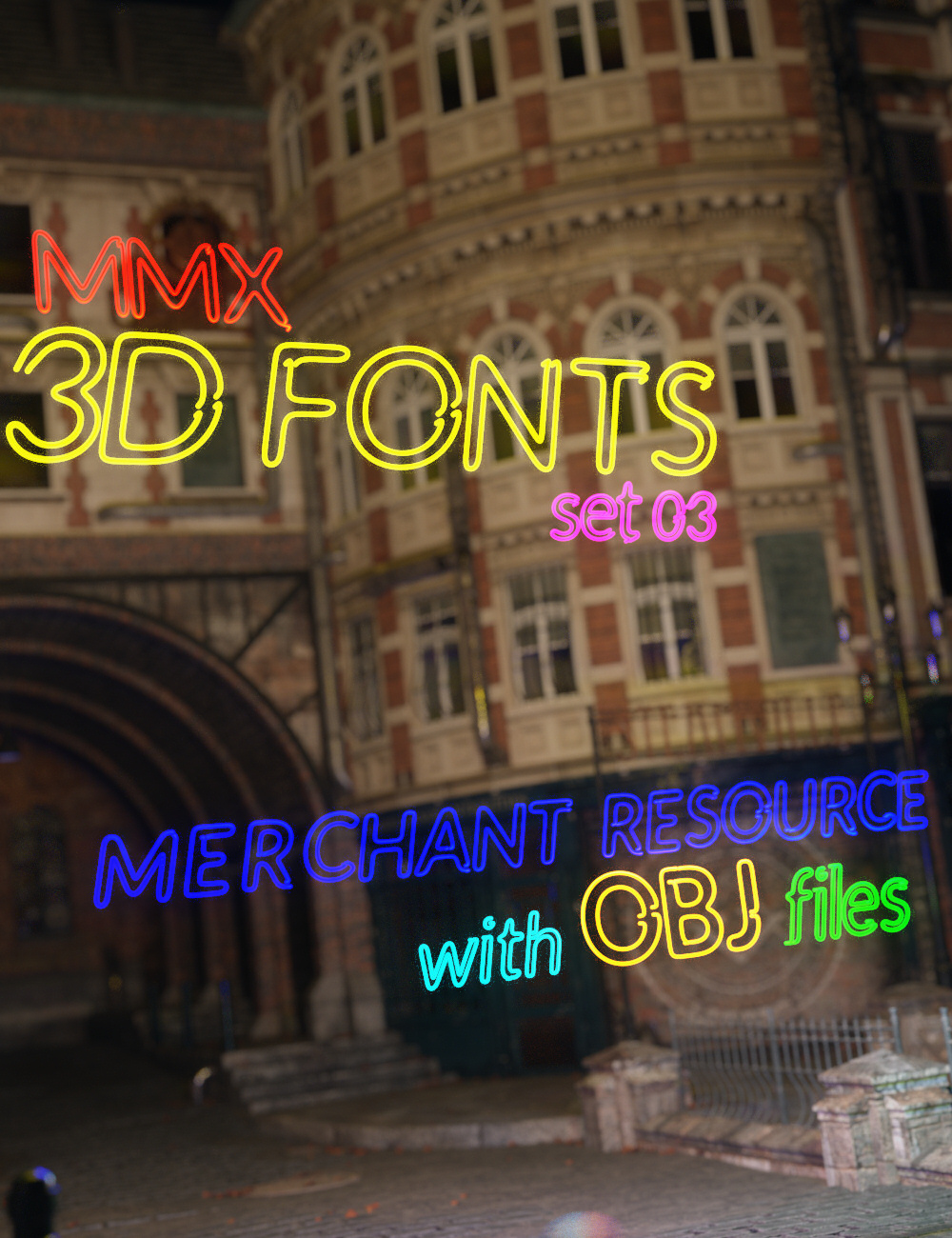
MMX 3D Fonts 03 Merchant Resource
This is a set of 388 neon sign-style font props. It comes in 4 different font types: standard, bold, italic, and bold italic. For each of those, there are 26 upper case letters, 26 lower case letters, 10 numbers, and 35 special characters. The set includes 8 light shader presets and one frosted type glass preset that does not emit light.